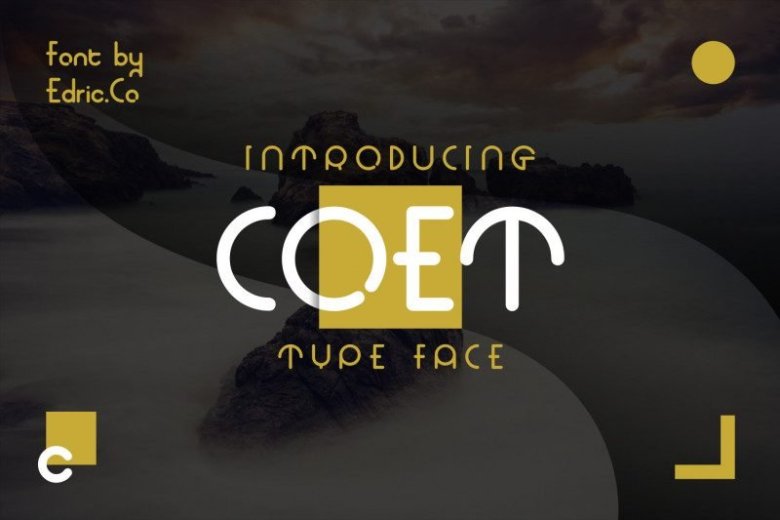
COET Font Family
It’s a Unique Style Sans Serif. The main character of this typeface is elegant and style in many way. This font will be great for many things : print designs like : magazine, brochure, invitation, flyers or even price tags.